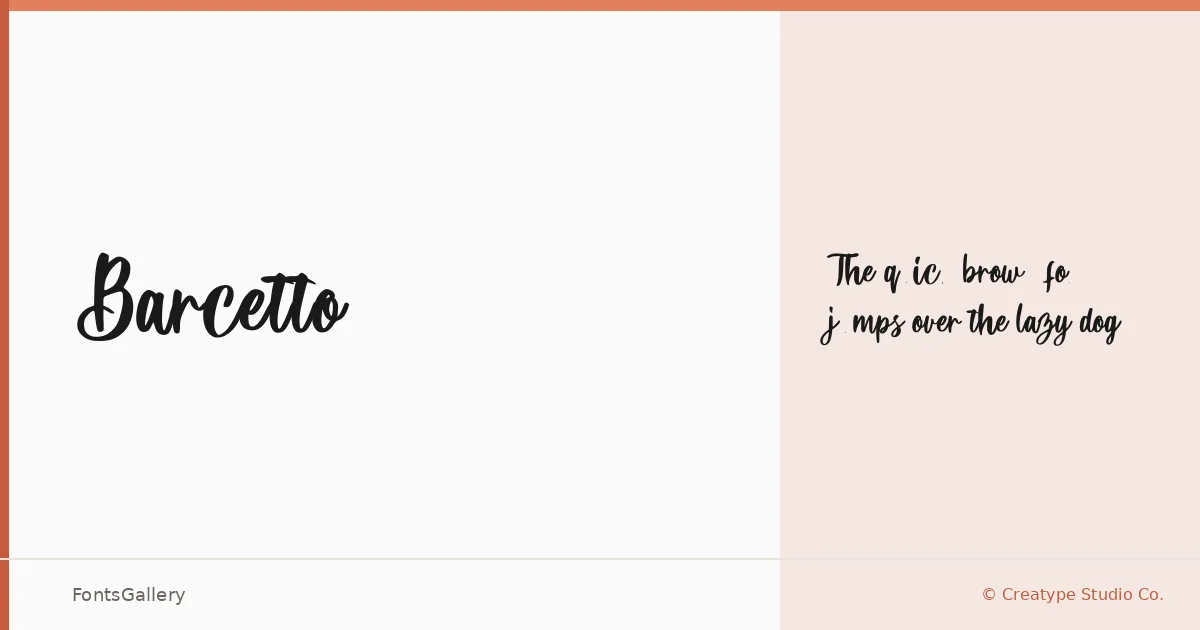
About Barcetto Font
There is a particular lightness to this script — the kind where each letterform seems to lift slightly off the baseline before settling into the next. Designed by Rian Rahardi of Creatype Studio Co., Barcetto arrives as a single Regular weight in TTF format, drawn with the kind of flowing connections that signal genuine attention to stroke contrast and rhythm.
The script sits at an interesting crossroads: romantic enough for wedding stationery, modern enough for a minimal brand mark. The forms carry an elegant lean without tipping into excessive flourish, and a playful energy surfaces in the way terminals resolve — confident but never stiff. Partial Latin coverage means it handles the core Western alphabet cleanly, though extended character needs should be checked against the glyph set before committing.
It earns its place on invitation cards, greeting cards, logo lockups, and social media graphics where a handcrafted feeling matters. Branding work benefits from pairing it against something structurally firm — Helvetica or Alexandria for clean contrast, or Canela when a softer editorial tone is wanted. Aresink and Bizantheum are also listed companion faces worth exploring when the job calls for a more decorative supporting role.